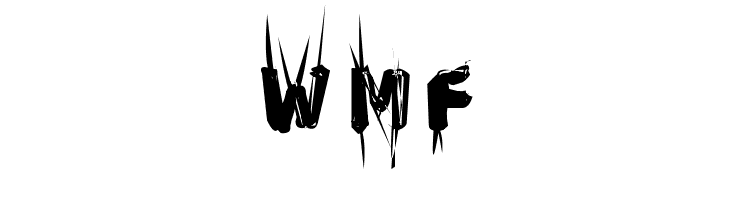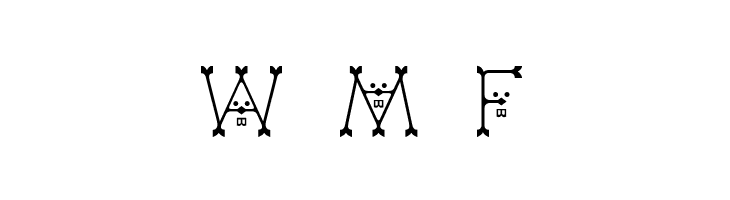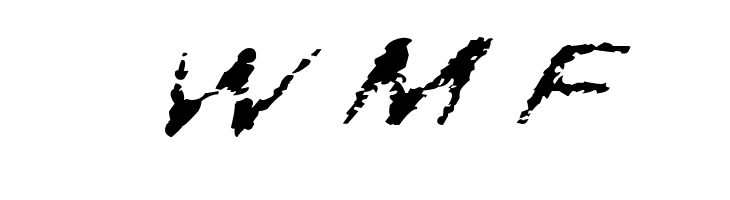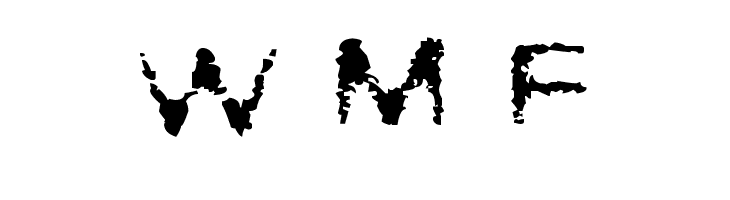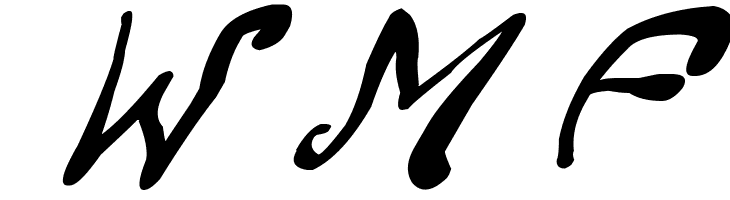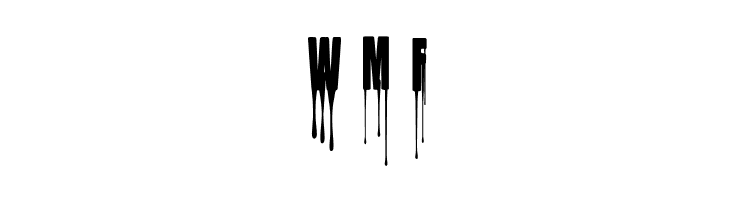
A bold, jagged font with a distressed, horror-themed design.
A playful, bone-themed font perfect for creative and themed projects.
A distressed, italic font with a ghostly, weathered appearance.
A distressed, ghostly font with an eerie, decayed texture.
A horror-themed font with dripping, jagged edges and a chaotic style.
A creepy, scrawled italic font with bold, fluid strokes.
A bold, spooky font with a playful, hand-drawn outline.
A bold, dripping font perfect for horror-themed designs.